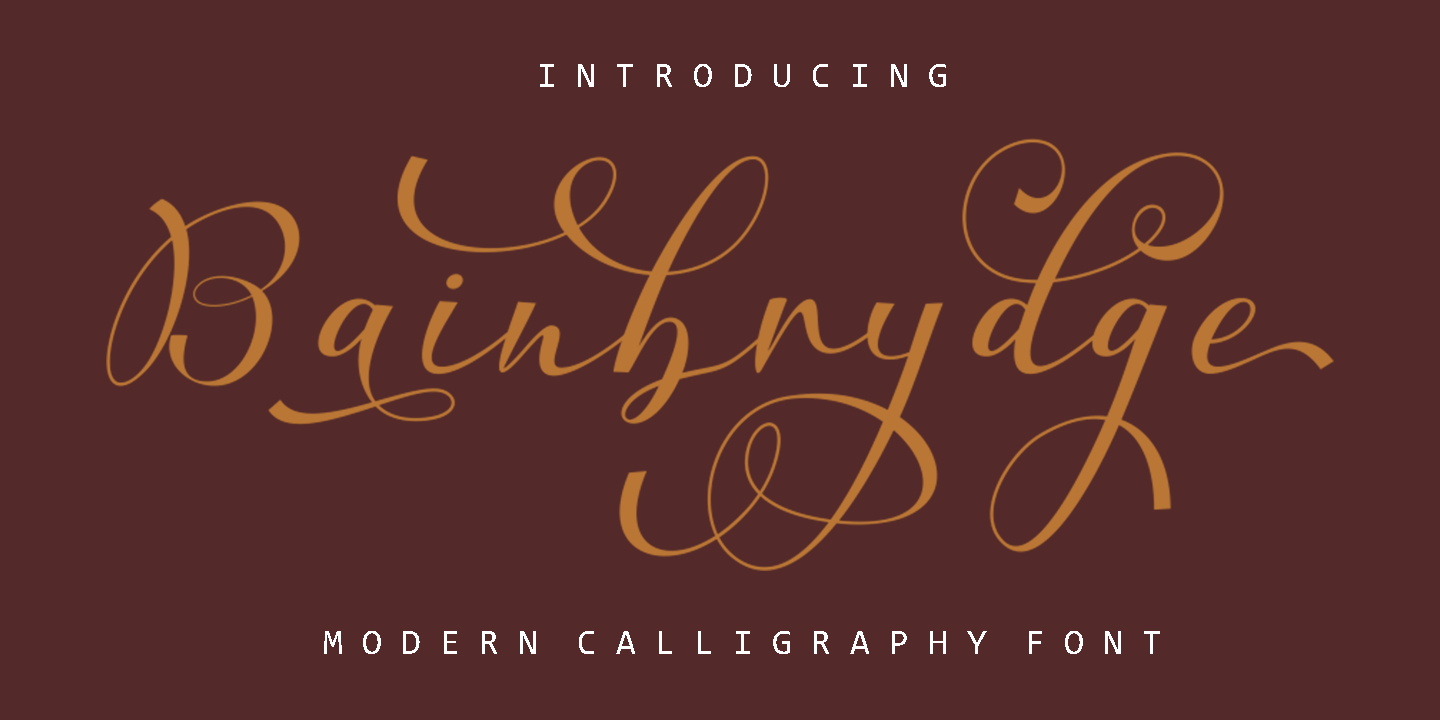
Bainbrydge Script Font is an exquisitely refined typeface, ideal for projects that demand elegance, sophistication, and a touch of timeless class. Envision it gracing the masthead of a luxury brand, adding an air of distinction to high-end event invitations, or providing a graceful signature for artisan products. Its fluid strokes and classic letterforms also make it a superb choice for creating distinguished wedding stationery, designing elegant logos for bespoke services, and enhancing the visual appeal of fine dining menus. Whether you're aiming for a formal, romantic, or inherently upscale aesthetic, Bainbrydge Script Font delivers an impactful and aesthetically pleasing visual statement.
What makes Bainbrydge Script Font truly exciting is its remarkable balance of traditional script charm with a contemporary readability. It’s not just a beautiful font; it's a practical one, ensuring that its inherent elegance doesn't compromise legibility. The meticulous design of each character, including graceful swashes and perfectly balanced connections, exudes a sense of craftsmanship and attention to detail. This makes it an outstanding choice for designs where you want to convey exclusivity and a personal touch without sacrificing clarity. Bainbrydge Script Font stands out by offering a sophisticated yet approachable elegance that elevates any design it touches.
The Bainbrydge Script Font family typically boasts a rich set of OpenType features designed to maximize its versatility and authentic handwritten feel. While script fonts generally don't come in multiple weights, you'll often find a comprehensive selection of stylistic alternates, allowing you to choose from various forms for many characters to achieve your desired aesthetic. A generous array of ligatures ensures that common letter pairs connect smoothly and naturally, mimicking genuine calligraphy. Many versions also include elegant swashes that can be added to the beginning or end of words, providing an extra flourish and personalization. Exploring these advanced features, especially with Bainbrydge Script Font Free Download, will enable you to create truly bespoke and captivating typographic designs.